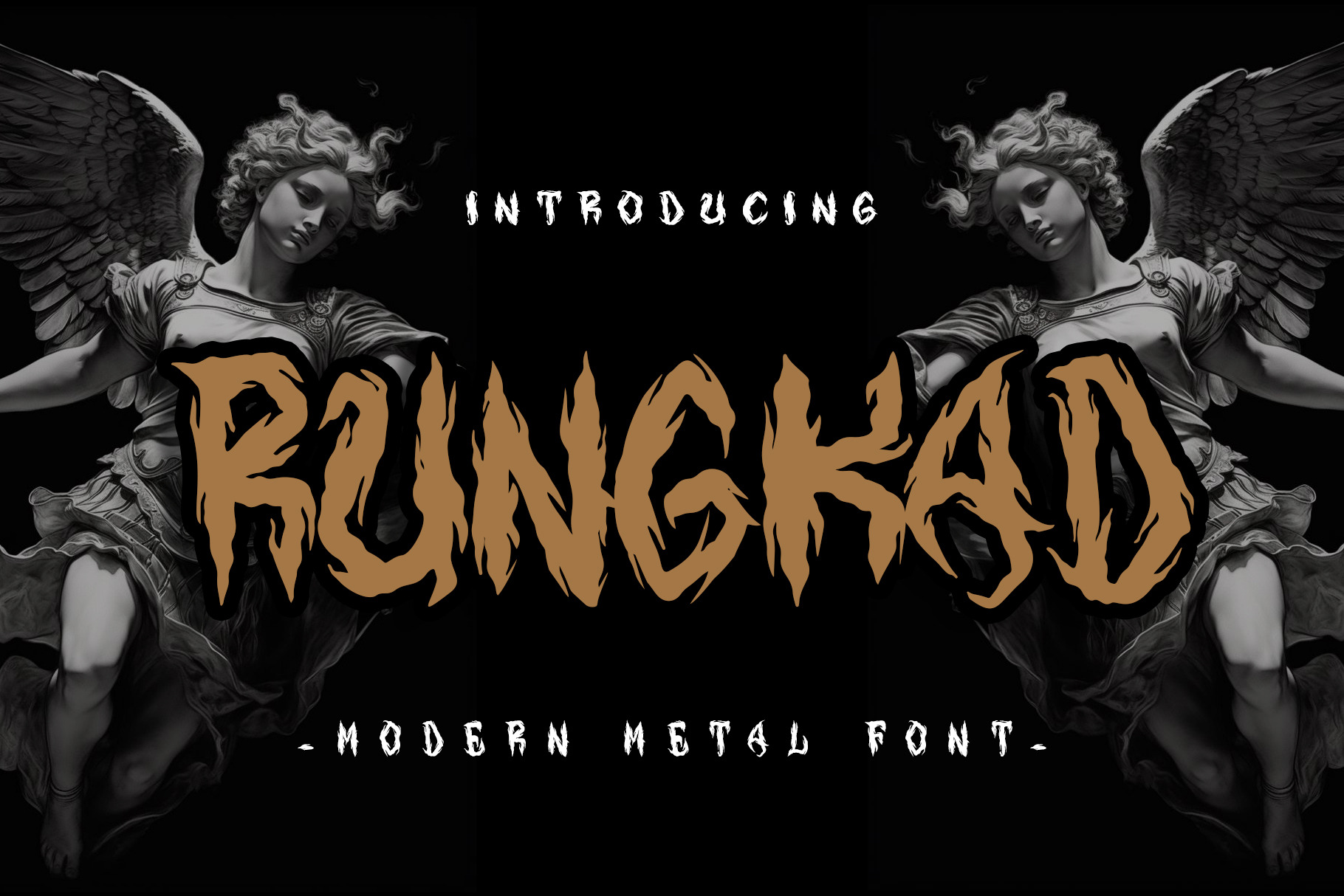
Rungkad Gothic Metal Font
Rungkad – Gothic Metal Font is a bold and aggressive display typeface that captures the raw energy of black metal and gothic aesthetics. With its sharp strokes, distorted shapes, and handcrafted feel, this font is designed to bring a dark, rebellious, and dramatic character to your creative projects.
Perfectly suited for metal band logos, album covers, horror posters, extreme sports graphics, tattoos, streetwear branding, and merchandise, Rungkad delivers a striking visual impact that commands attention. Its detailed letterforms and unique gothic vibe make it an excellent choice for any design that needs intensity and attitude.
This font includes uppercase, lowercase, numbers, punctuation, and multilingual support (PUA encoded), ensuring flexibility for global use. Whether you’re working on digital artwork, print media, or promotional materials, Rungkad adds a distinctive and powerful edge to your designs.